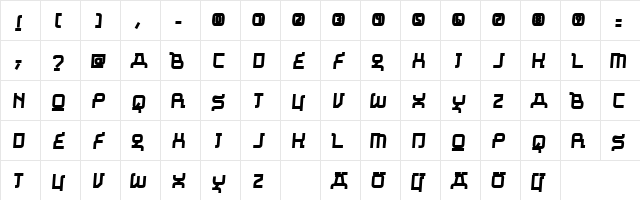
Missu Black Font Preview
Missu Black
Missu Black Font Details
Design Context for Missu Typeface
Missu is a composed and adaptable typeface that performs quietly and consistently across a wide range of design contexts.